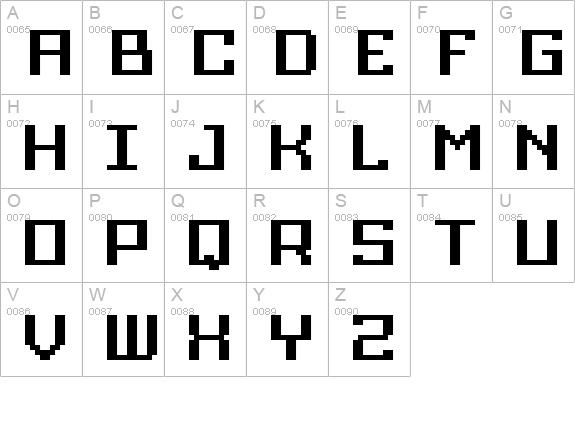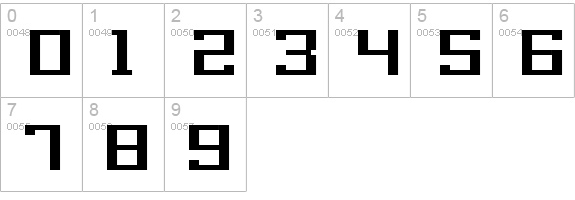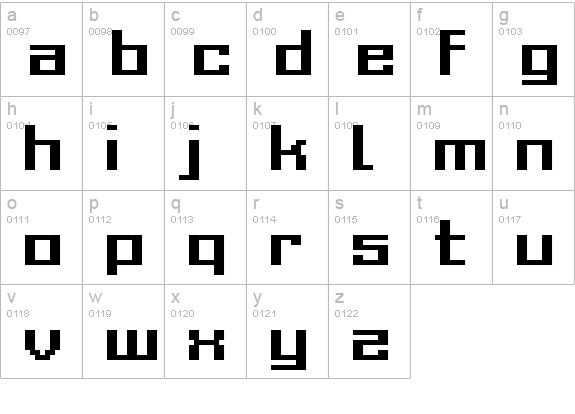
Grixel Acme 9 Regular Bold is the standard, neutral variant in the Grixel typeface family \xE2\x80\x94 well suited to general body text, paragraphs, and standard typographic work.
Grixel Acme 9 Regular Bold font is a versatile and eye-catching typeface that exudes confidence and modernity. With its bold and sturdy appearance, this font is perfect for making a statement in any design project. The sharp edges and clean lines of Grixel Acme 9 Regular Bold font give it a contemporary and professional look that is sure to capture the attention of viewers. What makes Grixel Acme 9 Regular Bold font even more appealing is that it is available for free download at FontsMarket.com. This means that you can easily access this high-quality font and use it in your projects without any cost. Whether you are designing a poster, logo, website, or any other creative endeavor, Grixel Acme 9 Regular Bold font will elevate your work and give it a bold and impactful presence. Download Grixel Acme 9 Regular Bold font for free today and enhance your designs with this modern and striking typeface.